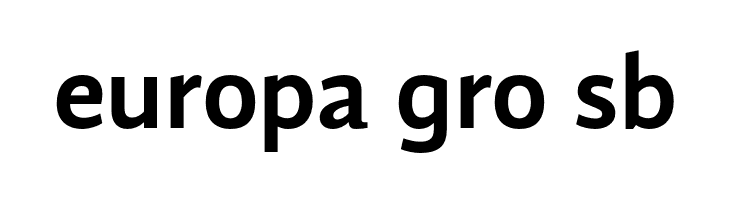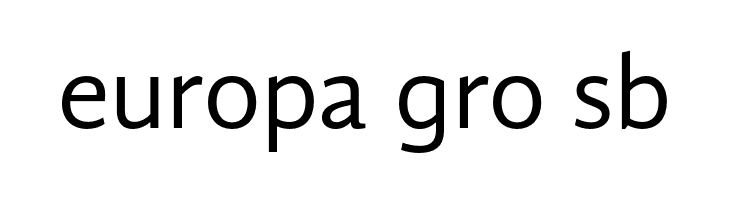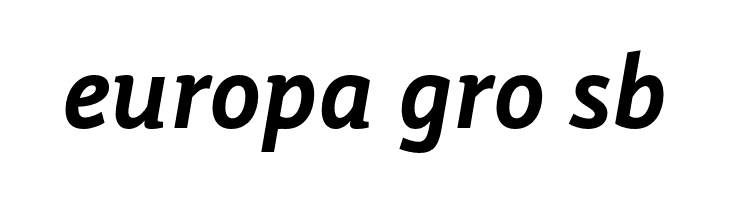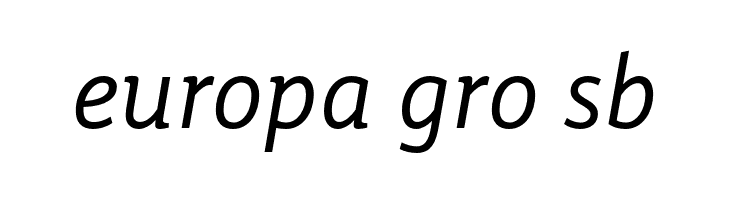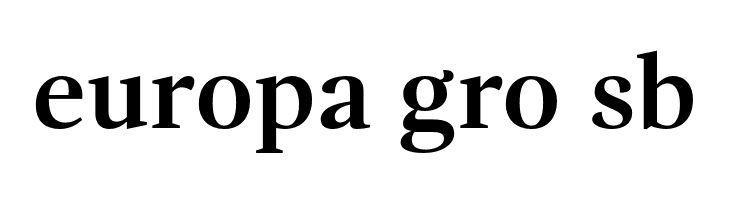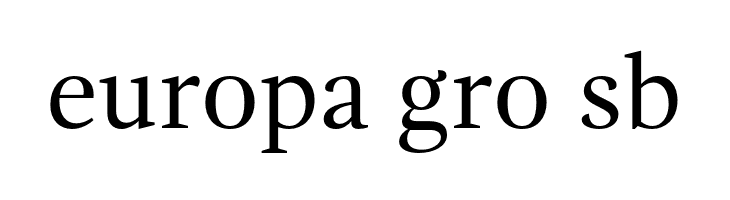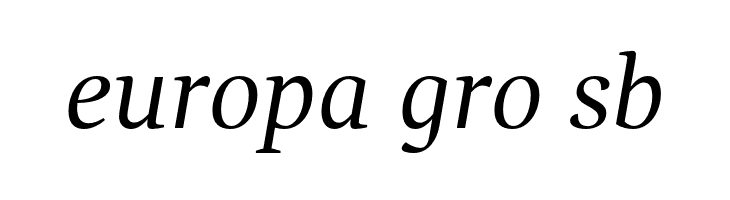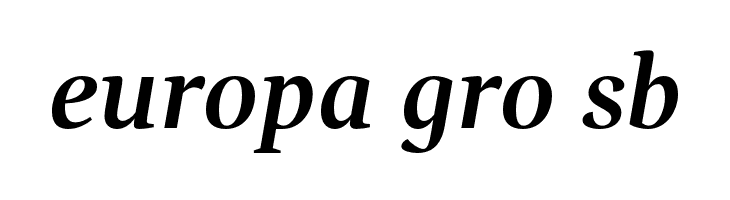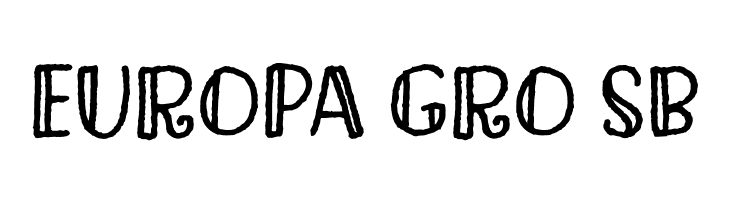
A bold, modern sans-serif font with clean lines and strong visual impact.
A clean, modern sans-serif font with balanced proportions and excellent readability.
A bold, italicized modern sans-serif font with consistent stroke thickness.
A clean, modern sans-serif font with a subtle italic slant.
A bold serif font with strong strokes and classic elegance.
A classic serif typeface with elegant proportions and refined serifs.
An elegant serif font with a classic italic style and refined serifs.
A bold, italic serif font with classic elegance and strong visibility.
A bold, hand-drawn font with a playful and artistic style.